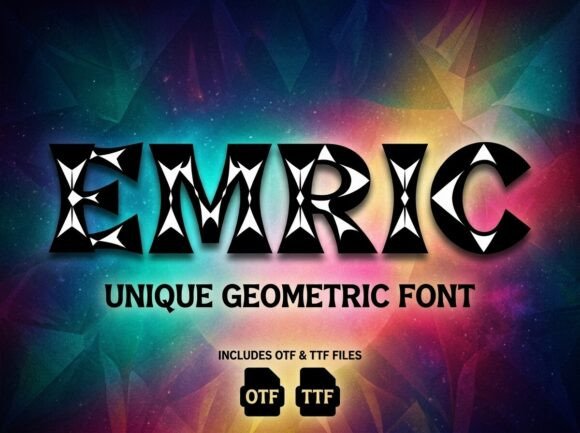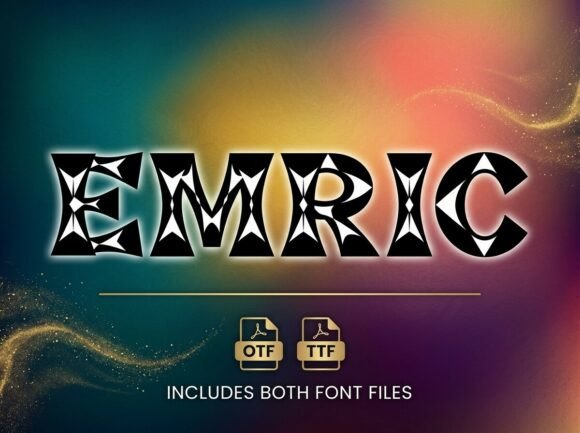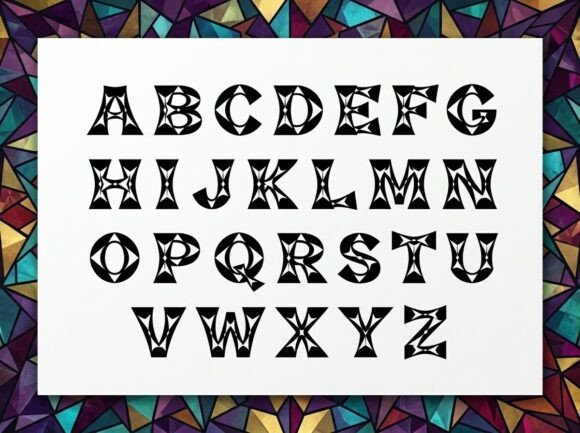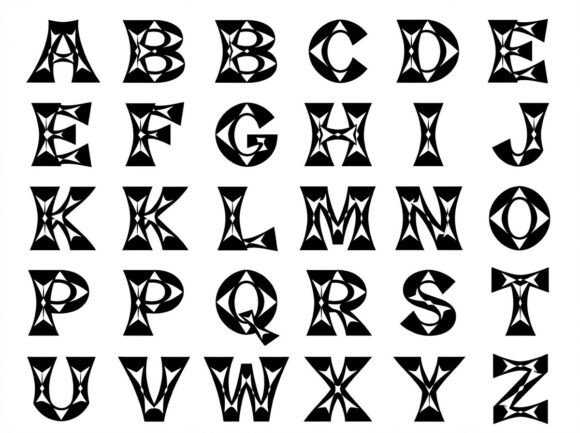
Introducing Emric Font: A Stunning Decorative Display Font
Are you tired of using the same old fonts for your designs? Look no further! Emric Font is a game-changing decorative display font that’s sure to turn heads. With its unique artistic elements and strong visual personality, this font is perfect for creators who want to break away from the ordinary and make a statement.
What Makes Emric Font Special?
Emric Font is a versatile decorative font that’s designed to be the center of attention. Its stunning artistic elements and strong visual personality make it perfect for a variety of design projects, from bold headlines and artistic logos to creative packaging. Whether you’re a designer, craftsperson, or DIY enthusiast, Emric Font is sure to elevate your work and give it a professional and polished finish.
Before you purchase Emric Font, it’s essential to note that this font is an ALL-CAPS (Uppercase Only) display typeface. This means that it does not include lowercase letters. Emric Font is specifically designed for high-impact headlines, logos, and decorative initials where every letter is a work of art.
This unique design feature allows for a level of artistic expression and creativity that’s hard to achieve with traditional fonts. However, it’s crucial to consider this limitation before making a purchase.
Use Cases for Emric Font
So, what can you use Emric Font for? The possibilities are endless! Here are a few ideas to get you started:
- Bold Headlines: Use Emric Font to create eye-catching headlines that grab attention and make a statement.
- Artistic Logos: Create a unique and memorable logo for your business or brand with Emric Font.
- Creative Packaging: Use Emric Font to add a touch of elegance and sophistication to your product packaging.
- Social Media Graphics: Create stunning social media graphics that stand out from the crowd with Emric Font.
Tips for Using Emric Font
To get the most out of Emric Font, here are a few tips to keep in mind:
- Use it sparingly: Emric Font is a bold and attention-grabbing font, so use it sparingly to avoid overwhelming your design.
- Experiment with colors: Emric Font looks great in a range of colors, so don’t be afraid to experiment and find the perfect color scheme for your design.
- Pair it with a simple font: Pair Emric Font with a simple font to create a striking contrast and add visual interest to your design.
Emric Font is a stunning decorative display font that’s perfect for creators who want to break away from the ordinary and make a statement. With its unique artistic elements and strong visual personality, this font is versatile enough for bold headlines, artistic logos, and creative packaging, while maintaining a professional and polished finish. So why wait? Purchase Emric Font today and take your designs to the next level!